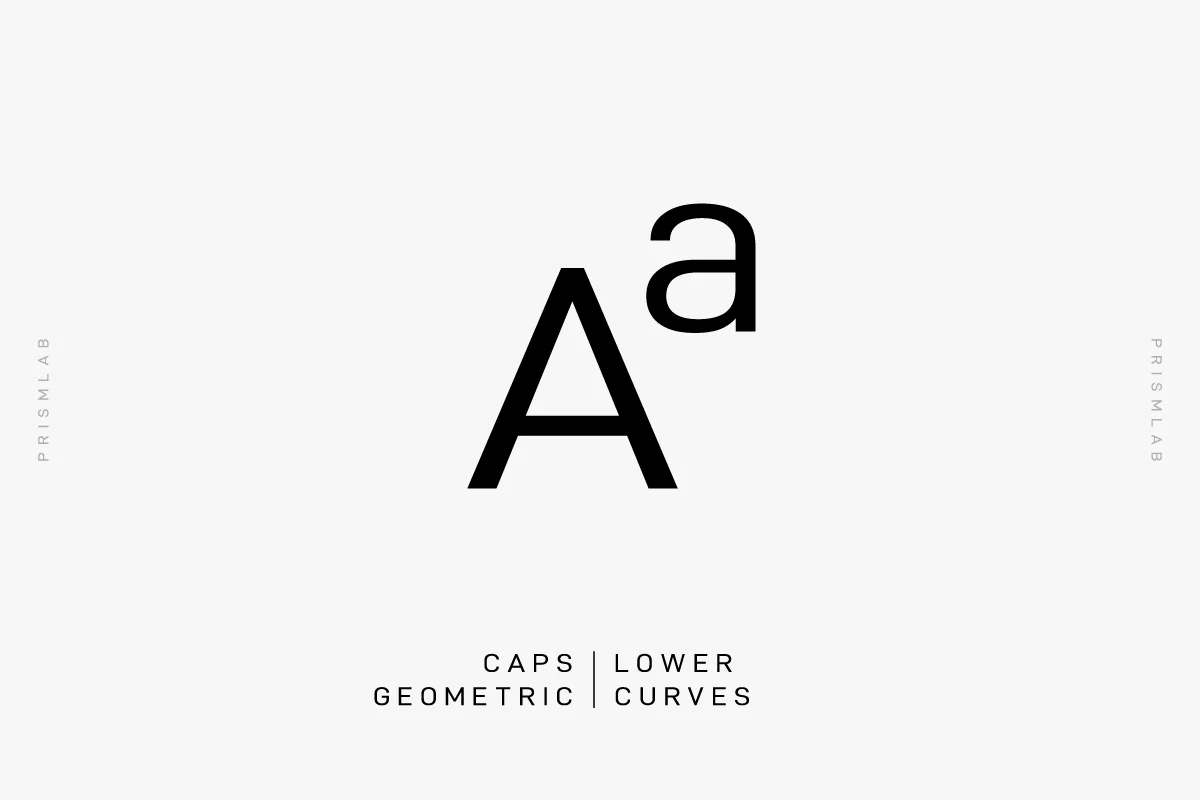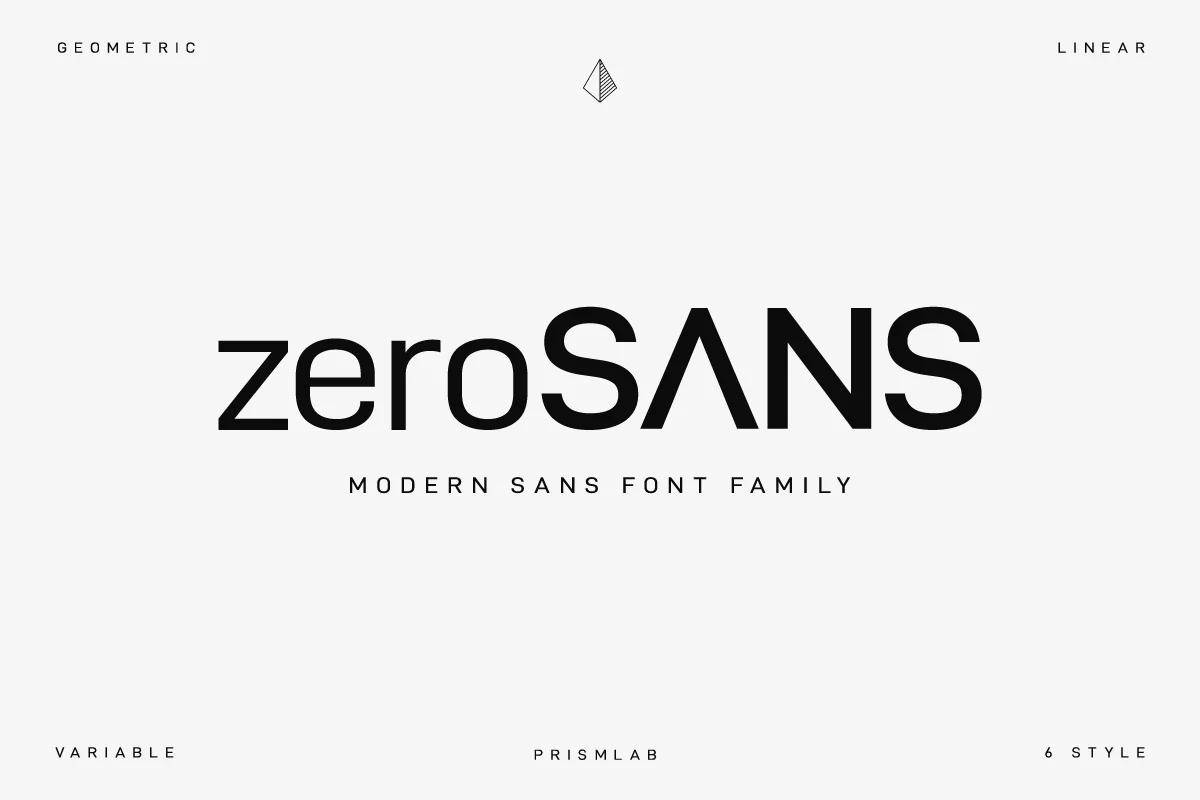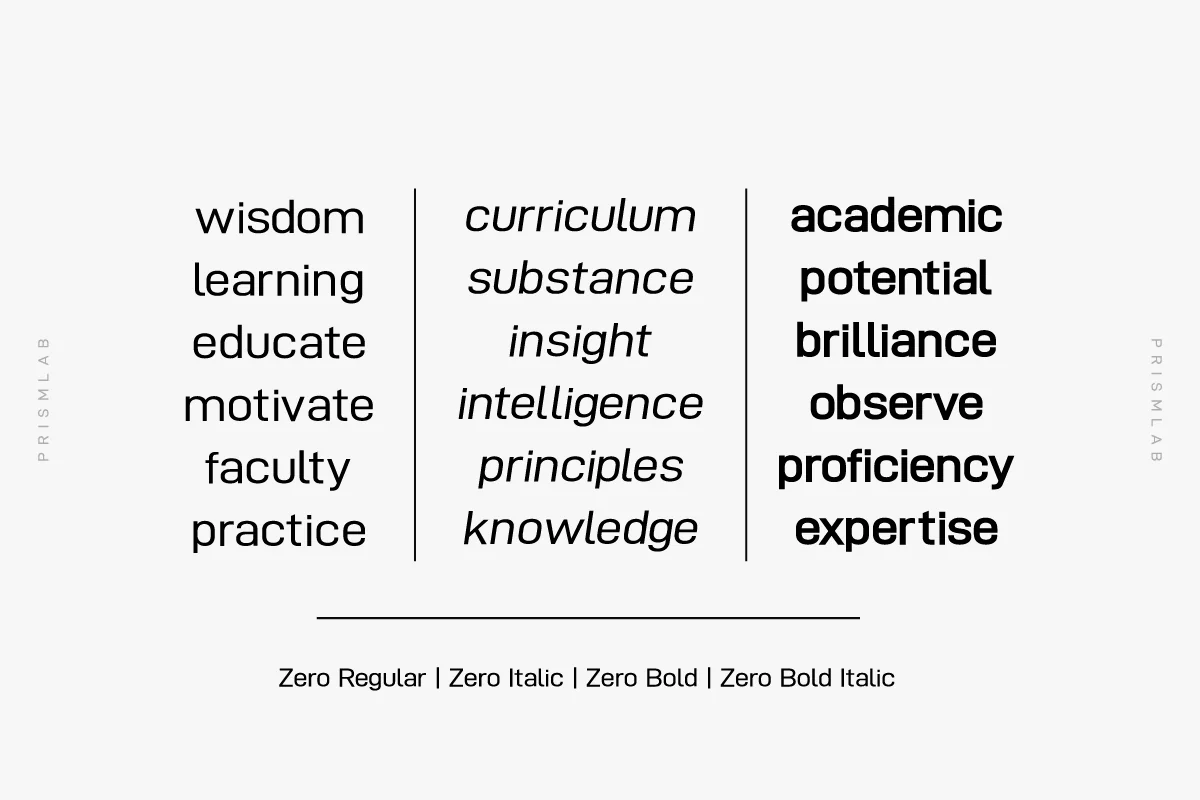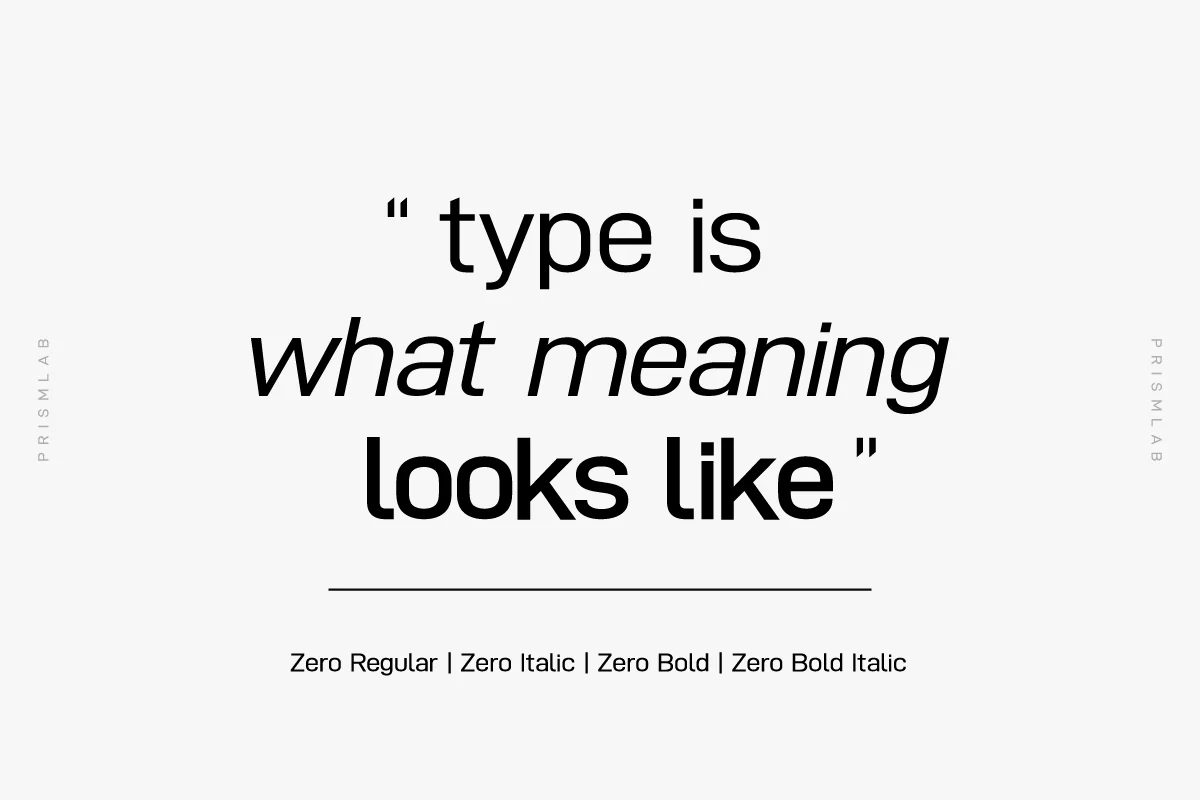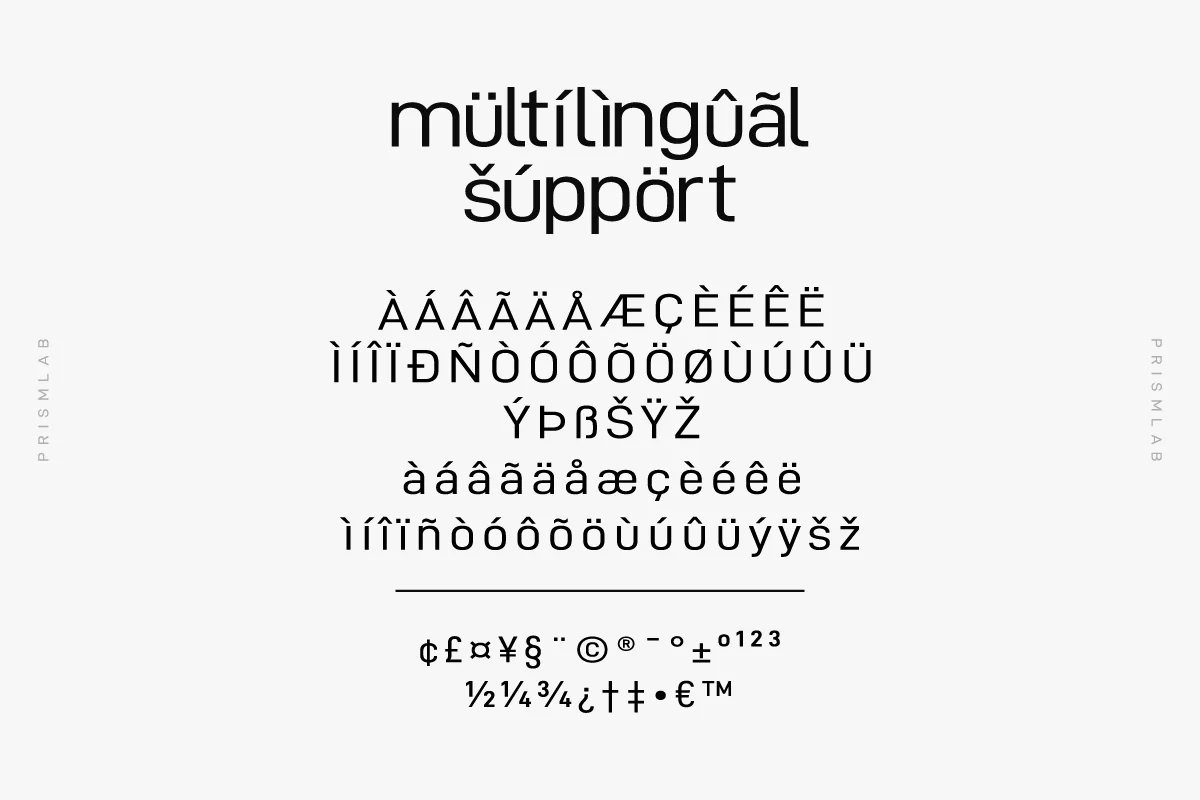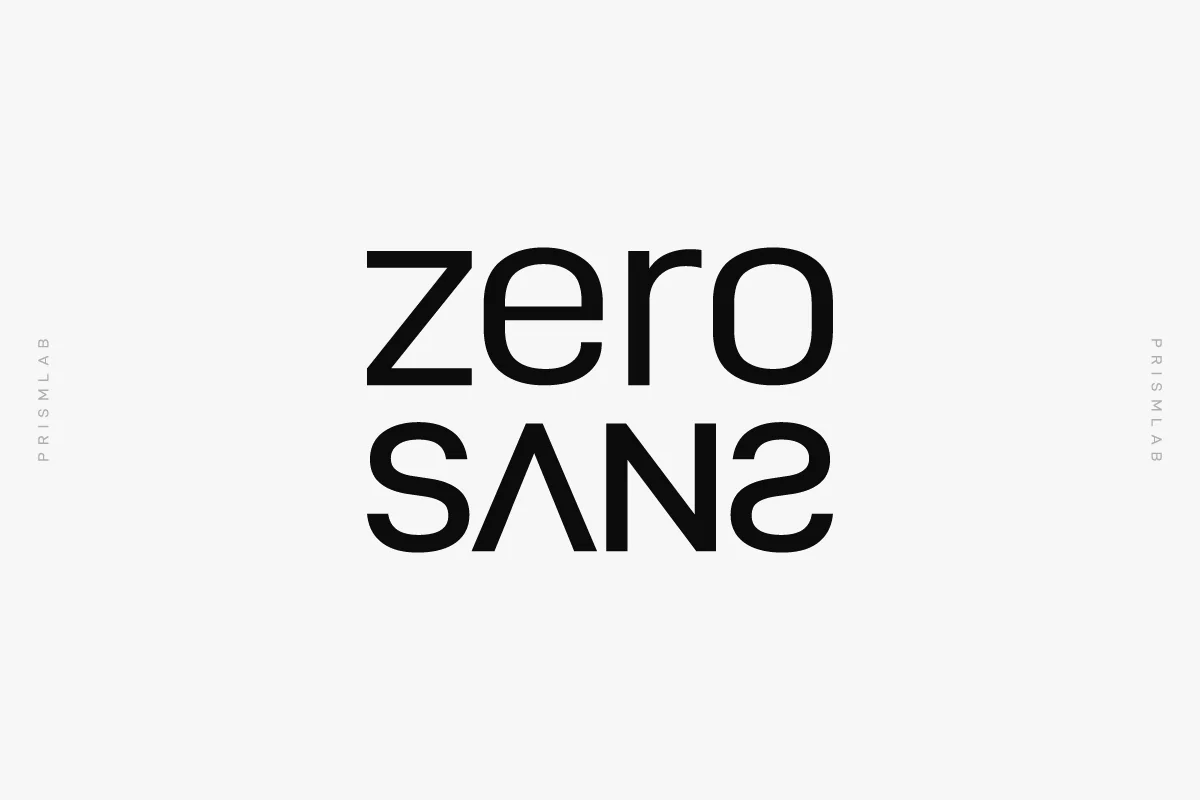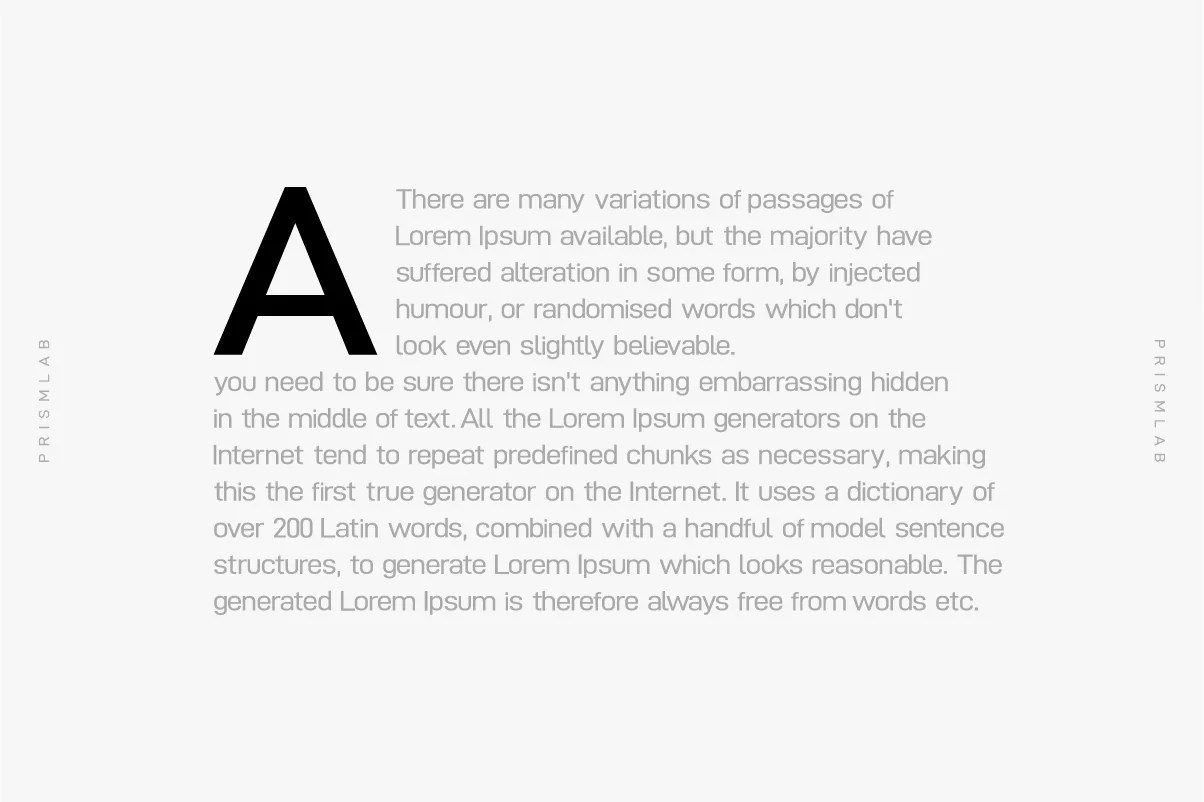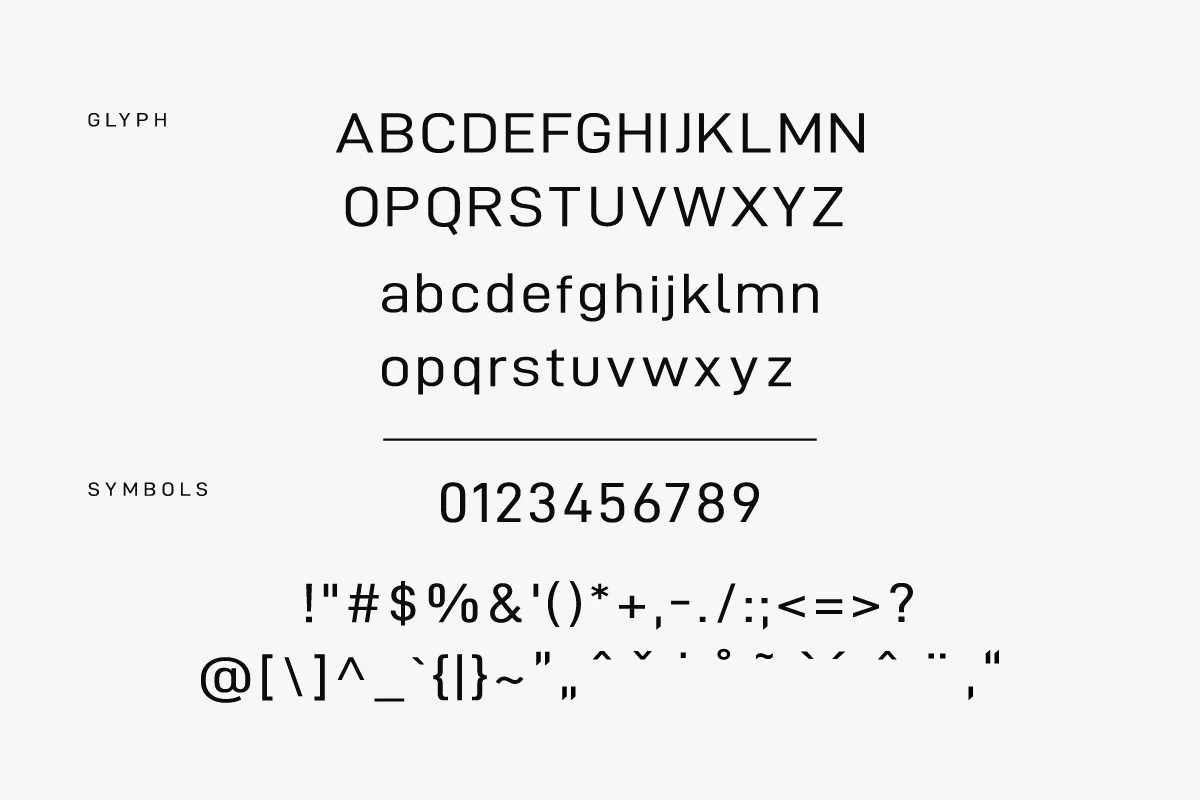
Zero | A Geometric Sans Typeface
ZERO Is A Geometric Sans Typeface Inspired By Strong And Powerful Character. Bold And Sharp With Smooth Textures. Suitable With Your Business And Modern Company.
Font Features :
Zero Regular .Sharp and Edgy
Zero Italic .Thin and Playful
Zero Bold .Strong and Powerful
Zero Bold Italic .Thick and Elegant